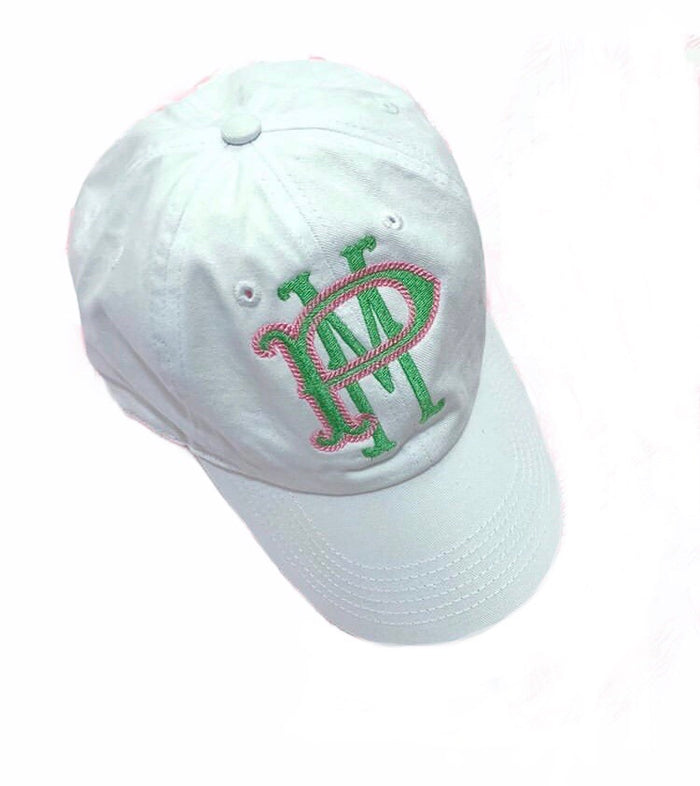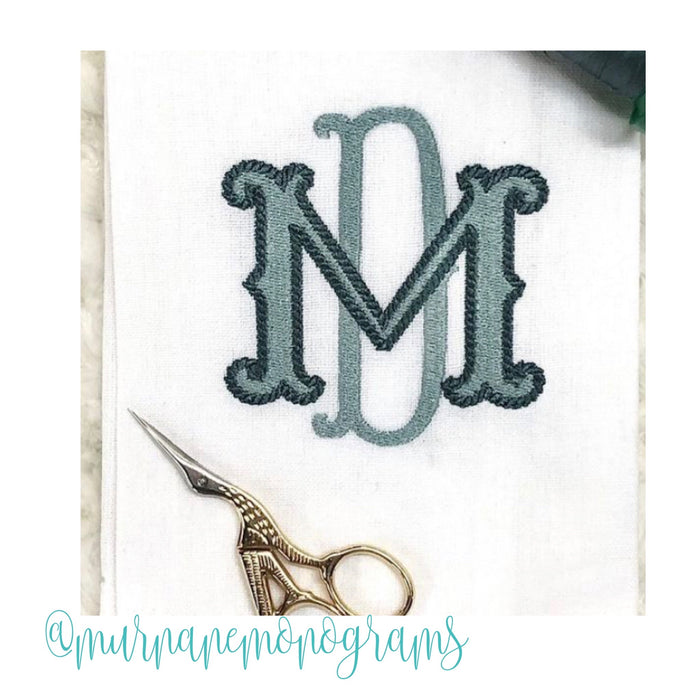
Barrett Fill Rope Embroidery Font Package
Unleash your creativity with the Barrett Fill Rope Embroidery Font Package, designed to elevate your embroidery projects. This comprehensive package includes four versatile sizes of our best-selling Barrett Rope Embroidery Font, making it perfect for crafters and DIY enthusiasts.
The package features 52 letters in total: 26 accent letters with a contrasting rope outline for a bold look, paired with 26 tall, thin letters exactly complementing them. Available in sizes of 1.5" and 2", 2.5" and 3.5", 4" and 5", and 3.5" and 6", you'll find the perfect fit for any design.